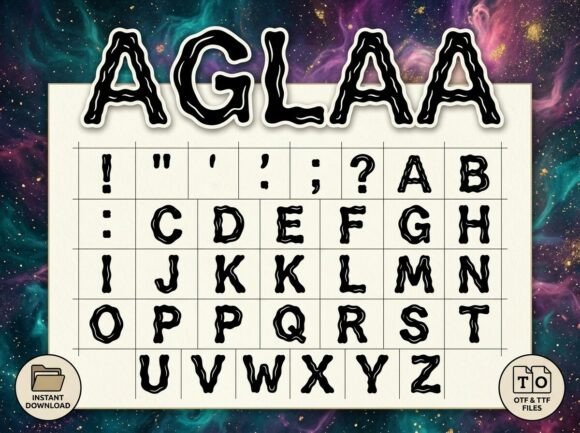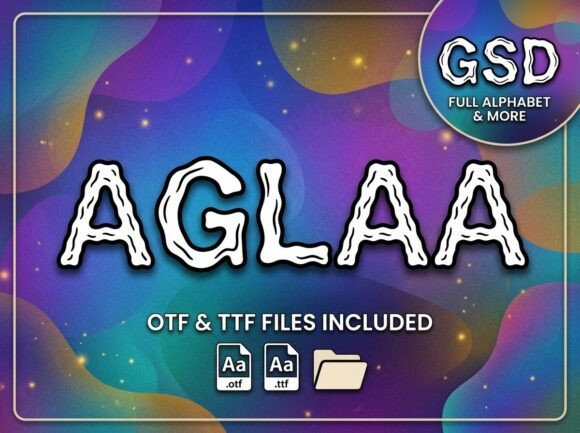
Introduction to Aglaa Font
Infuse your designs with organic movement using Aglaa, a fluid display typeface that captures a “natural-and-neolithic” soul.
This font features bold, rounded letterforms uniquely characterized by rhythmic, hand-drawn “melted” edges and internal wood-grain textures that evoke the look of ancient fossils or sea-weathered driftwood With its heavy graphic weight and primitive personality, Aglaa is the premier choice for independent coastal branding, handcrafted furniture logos, mythological book titles, and high-impact “mystical-and-maritime” social media headers.
Key Features of Aglaa Font
• âś… High quality design for professional projects
Why Choose Aglaa Font?
Aglaa Font offers exceptional quality and versatility, making it a valuable addition to your design toolkit. Whether you’re creating for personal projects or commercial use, Aglaa Font delivers professional results.